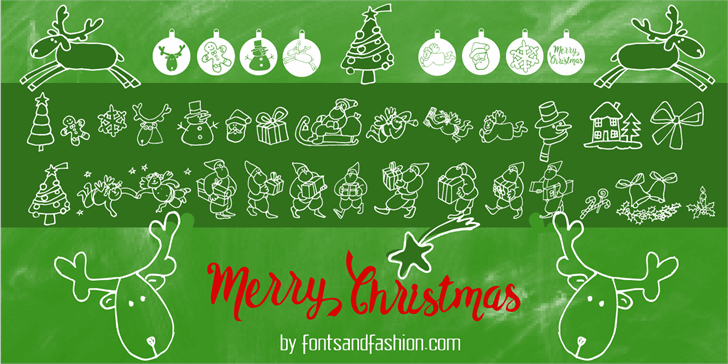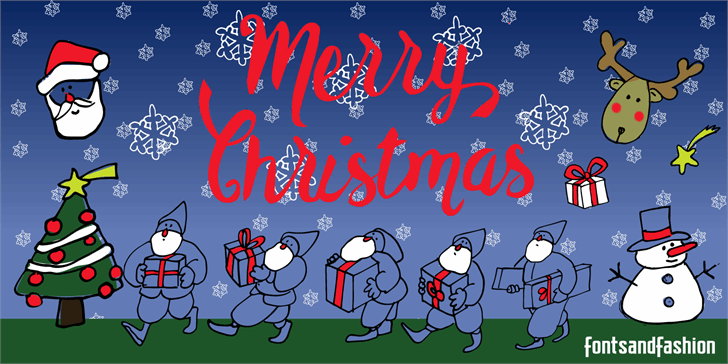
Happy Christmas
Happy Christmas Font
It’s Christmas time!!!! For this special occasion, Fontsandfashion have decided to give you an amazing present!!!
You can have our MERRY CHRISTMAS font elements is FOR FREE!!! You may use our cute collection of decoration elements as complements for your Christmans cards or for any other artwork.